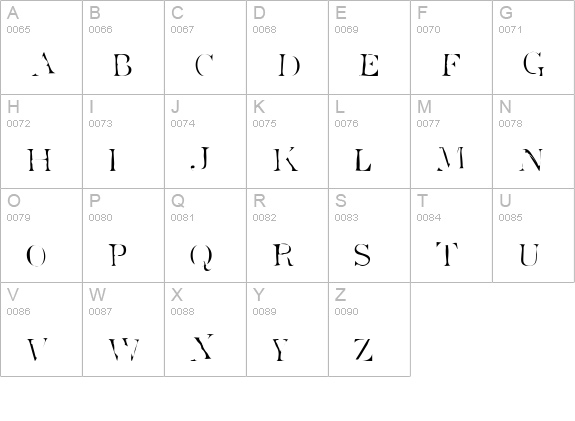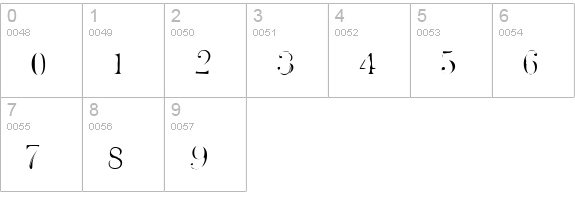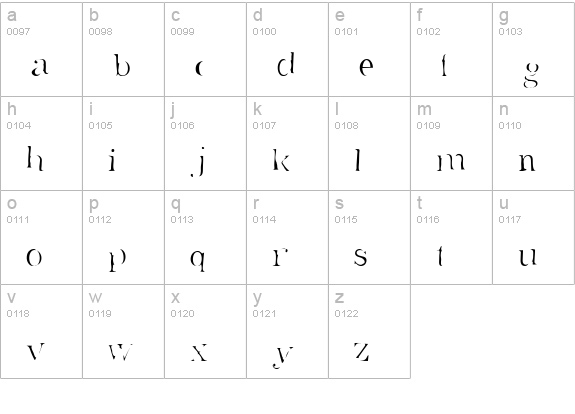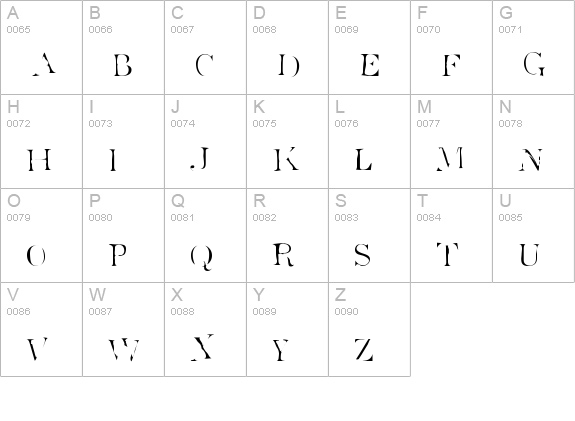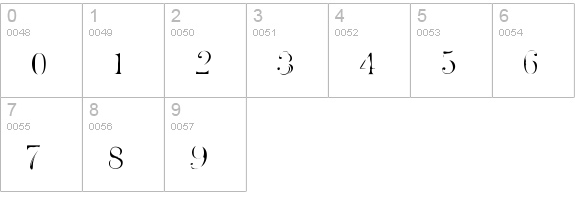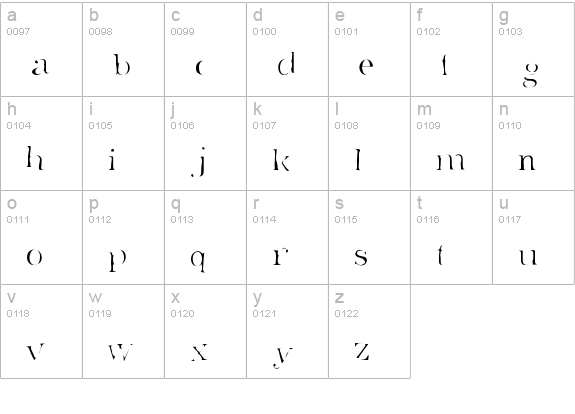
Superstar Font Details
Superstar font is a dynamic and eye-catching typeface that exudes charisma and style. With its bold strokes and modern design, this font is perfect for making a statement and grabbing attention. The versatility of Superstar font allows it to be used in a variety of design projects, from posters to logos to social media graphics. What's even better is that Superstar font is completely free to download at FontsMarket.com. You can easily add this exciting font to your collection without any cost, allowing you to elevate your designs without breaking the bank. Don't miss out on the opportunity to enhance your projects with the striking Superstar font, available for free at FontsMarket.com.